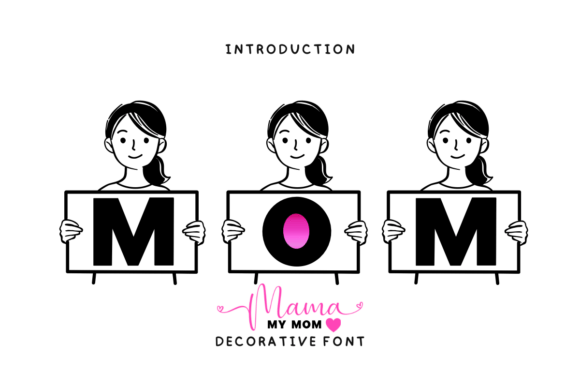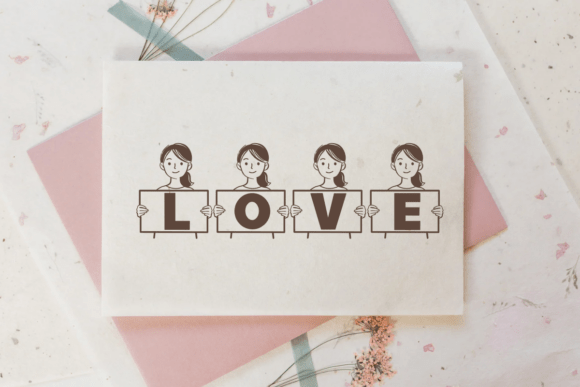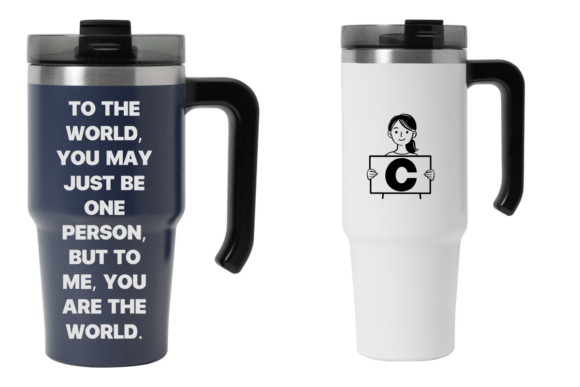
My Mom Font
Introducing “My Mom”, a captivating decorative font designed to bring your creative projects to life. From journaling your personal thoughts to crafting heartwarming greeting cards, My Mom font is your go-to choice. But why stop there? Let the versatility of this charming typeface surprise you! Incorporate its playful lines in your banner design, utilize its distinctive personality to highlight your content, or let it give a unique touch to your mugs. From cards to shirts, from stationery sets to social media posts, sprinkle a little bit of “My Mom” magic to add a unique flavour to your designs. Unleash your creativity with the My Mom font.